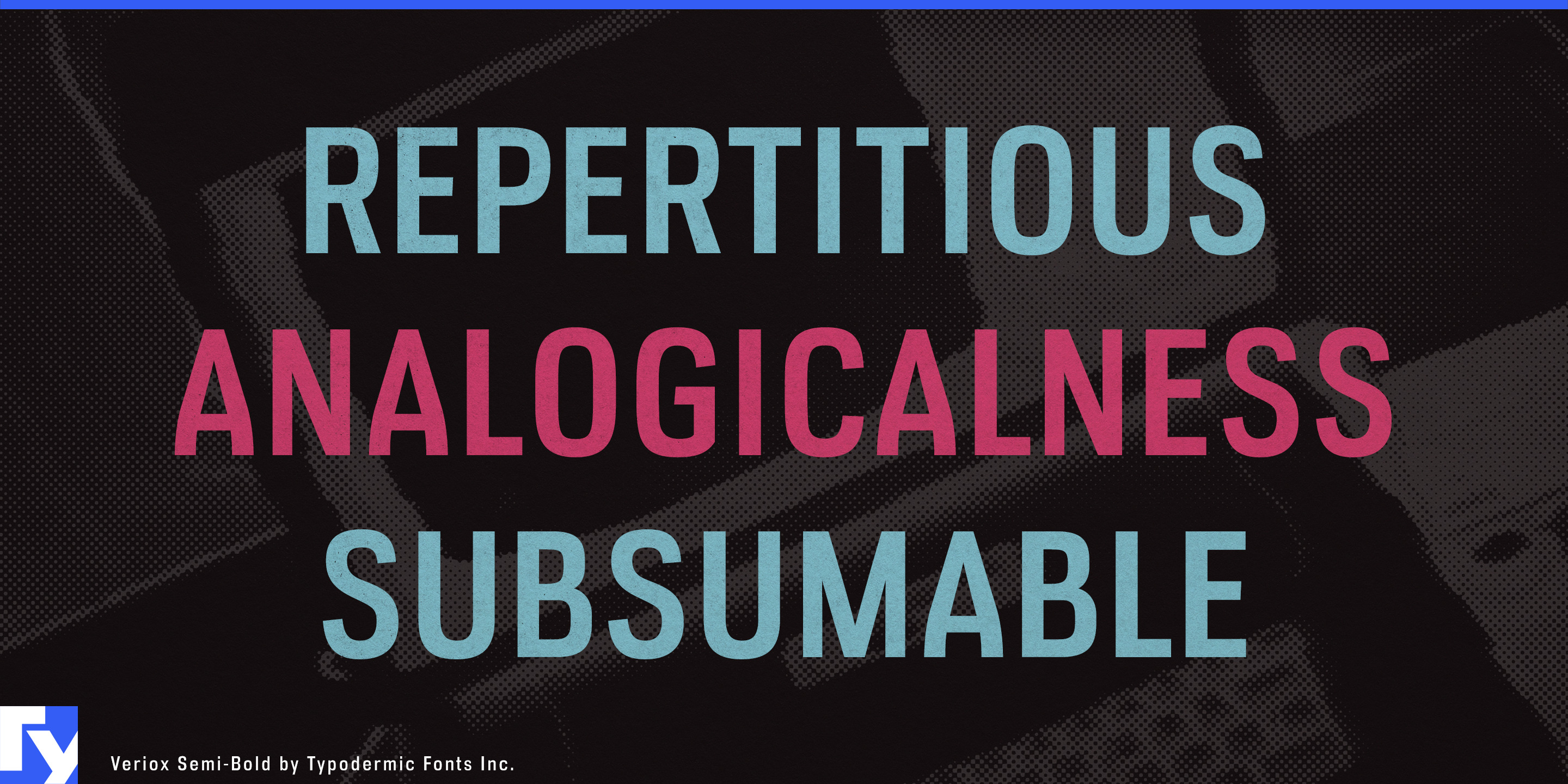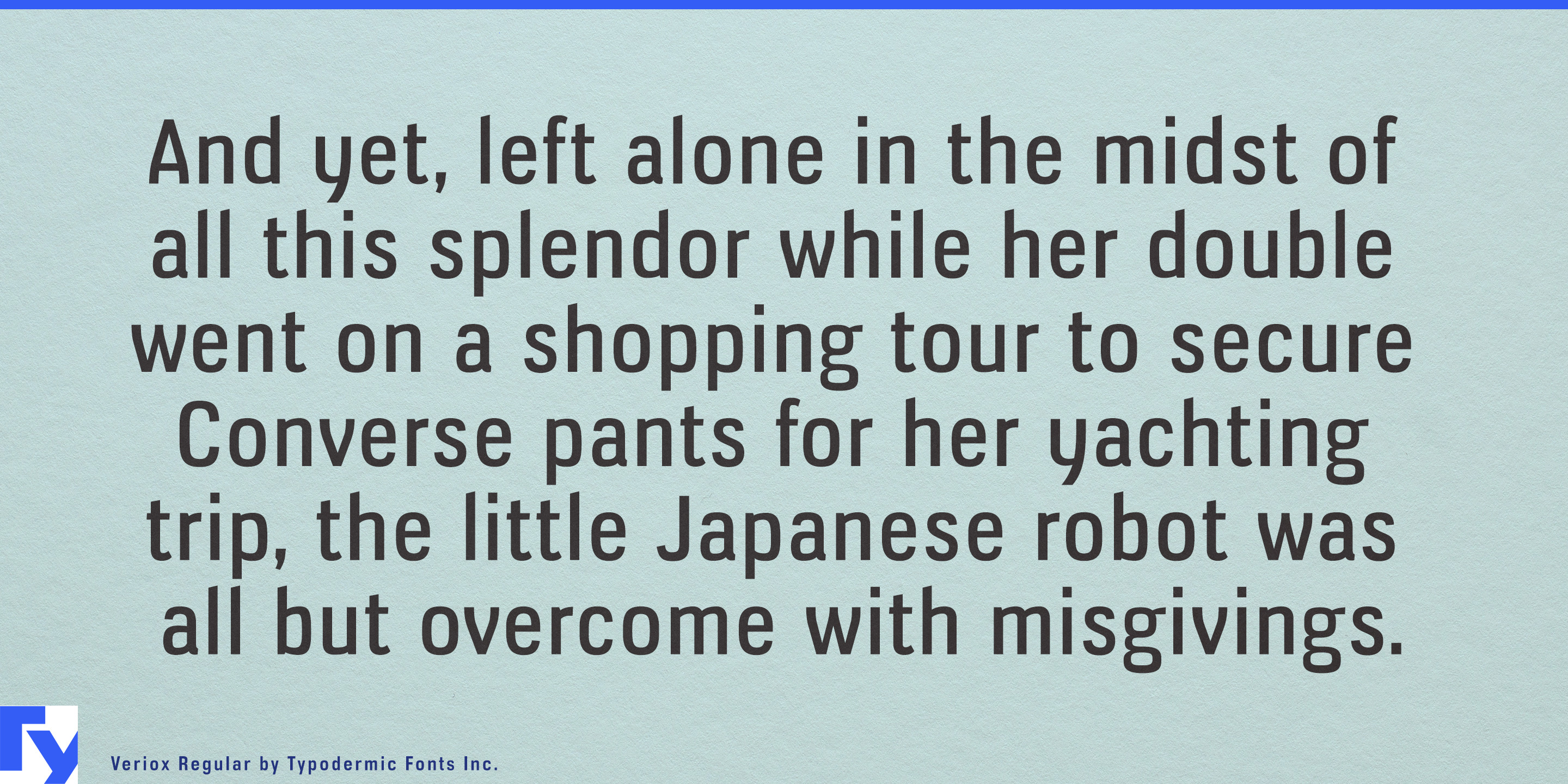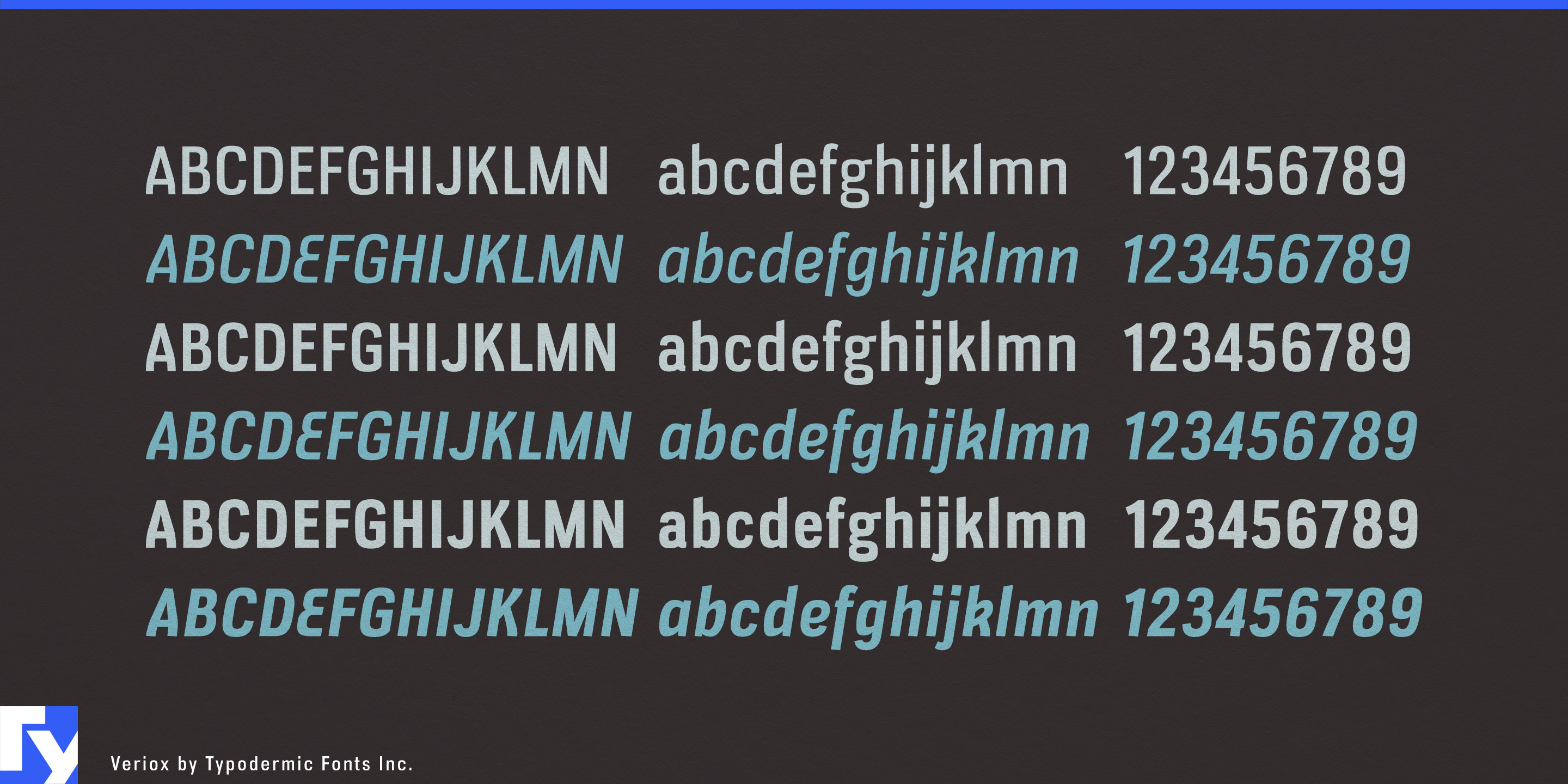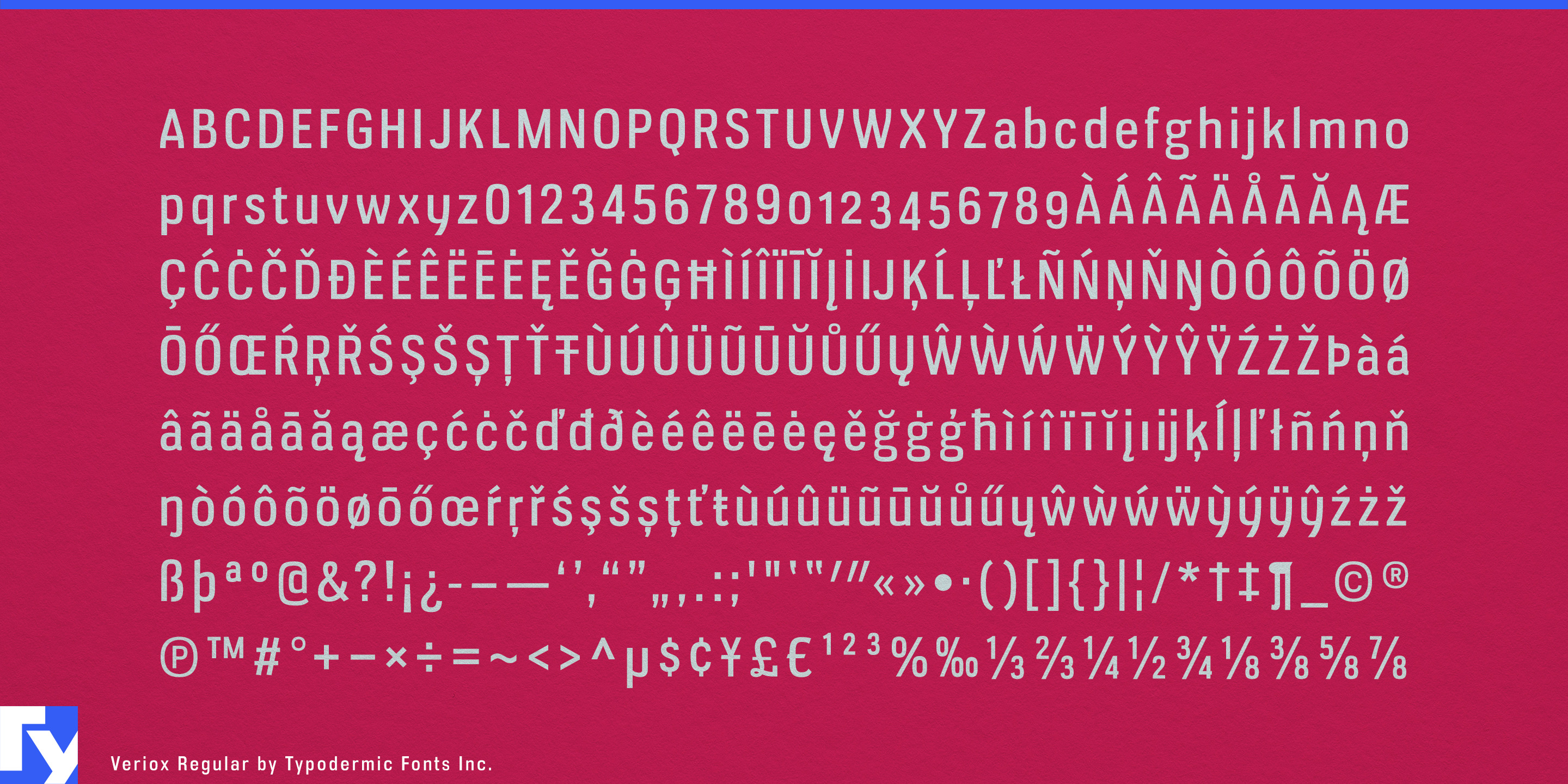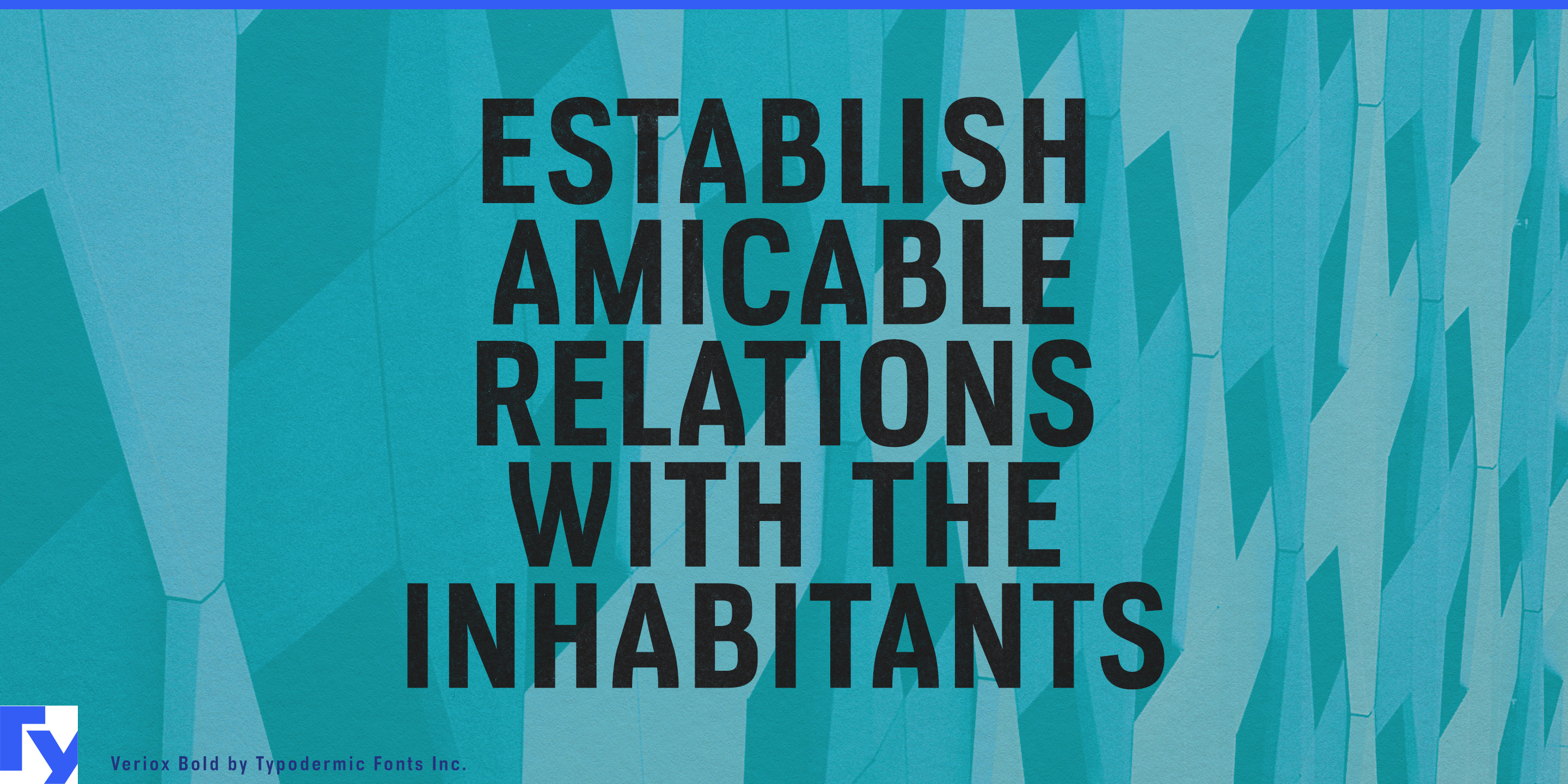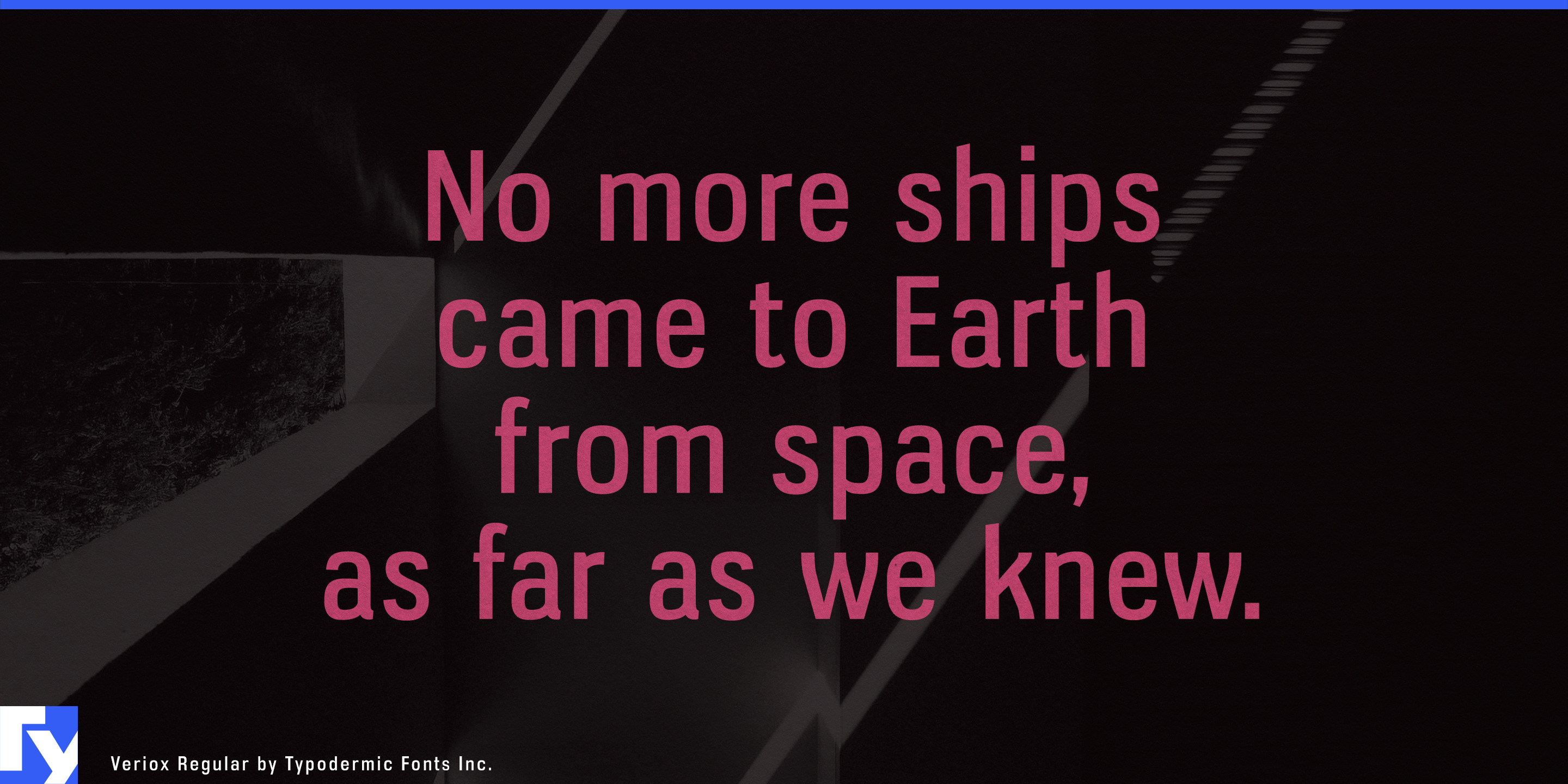
Veriox
Technical products rarely exist as a single object anymore. A surveying instrument connects to field software; an inspection scanner produces dashboards and reports; a monitoring device feeds a digital model. Veriox has enough technical structure to identify the equipment, but enough conventional typographic behavior to follow the information beyond the device.
Its compact construction keeps broad diagonal letters such as A, V, W, and X under control while preserving a clear mixed-case rhythm. The forms feel engineered without becoming theatrical, and the family can carry short passages and technical information as comfortably as product names and headings.
Surveying and reality capture are especially natural settings. GNSS receivers, total stations, terrestrial laser scanners, LiDAR systems, mobile-mapping rigs, photogrammetry platforms, drone-survey equipment, and rugged field controllers all need typography across instrument fascia, carrying cases, field interfaces, point-cloud presentations, training material, and survey reports. Veriox can handle model names and equipment graphics while remaining restrained enough for the information produced by the instrument.
Industrial metrology and automated inspection create a similar chain. Coordinate-measuring machines, optical scanners, robotic inspection cells, machine-vision systems, calibration equipment, and dimensional-analysis software need product names, inspection-station graphics, quality dashboards, measurement reports, and trade-show material. Veriox’s compact proportions suit model numbers and technical labels while keeping the surrounding documentation visually connected.
Modular construction and off-site manufacturing provide another strong application. Prefabricated wall systems, facade modules, structural assemblies, bathroom pods, MEP racks, and factory-built components need identifiers across the product itself, installation diagrams, assembly manuals, technical catalogs, factory displays, and project dashboards.
Water infrastructure brings the same technical language to smart meters, leak-detection equipment, pump controls, stormwater monitors, treatment systems, telemetry units, and watershed sensors. Device names, enclosure graphics, monitoring dashboards, installer guides, and maintenance reports can share one visual system without making public infrastructure look overtly futuristic.
The same continuity suits bridge, tunnel, rail, utility, and building inspection, as well as professional field instruments such as thermal cameras, electrical testers, cable analyzers, laser levels, and environmental meters.
Veriox is technical enough for the instrument, restrained enough for the interface, and readable enough to follow the data into reports, diagrams, manuals, and presentations. That makes it particularly useful for design systems that have to connect physical equipment with the information surrounding it.